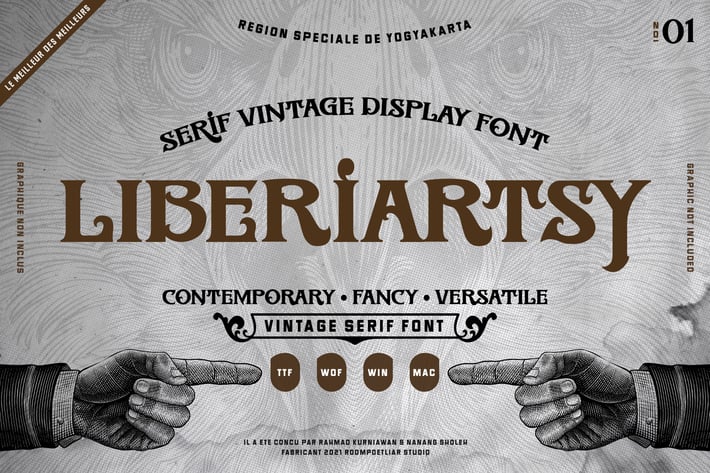
Liberiartsy Vintage Font
Liberiartsy Vintage Display Font. Vintage font with a well-balanced contemporary, fancy, unique, and versatile vintage serif font. It is a serif display font suits best for branding projects, logos, wedding designs, social media posts, advertisements, product packaging, product designs, label, photography, watermark, invitation, stationery, Religion events, signage board, and any projects. It makes with a high level of legibility.
+ 6 OpenType features
+ 79 languages
+ 299 glyphs
+ Alternates
+ Localized Forms
+ Stylistic Set 01-03